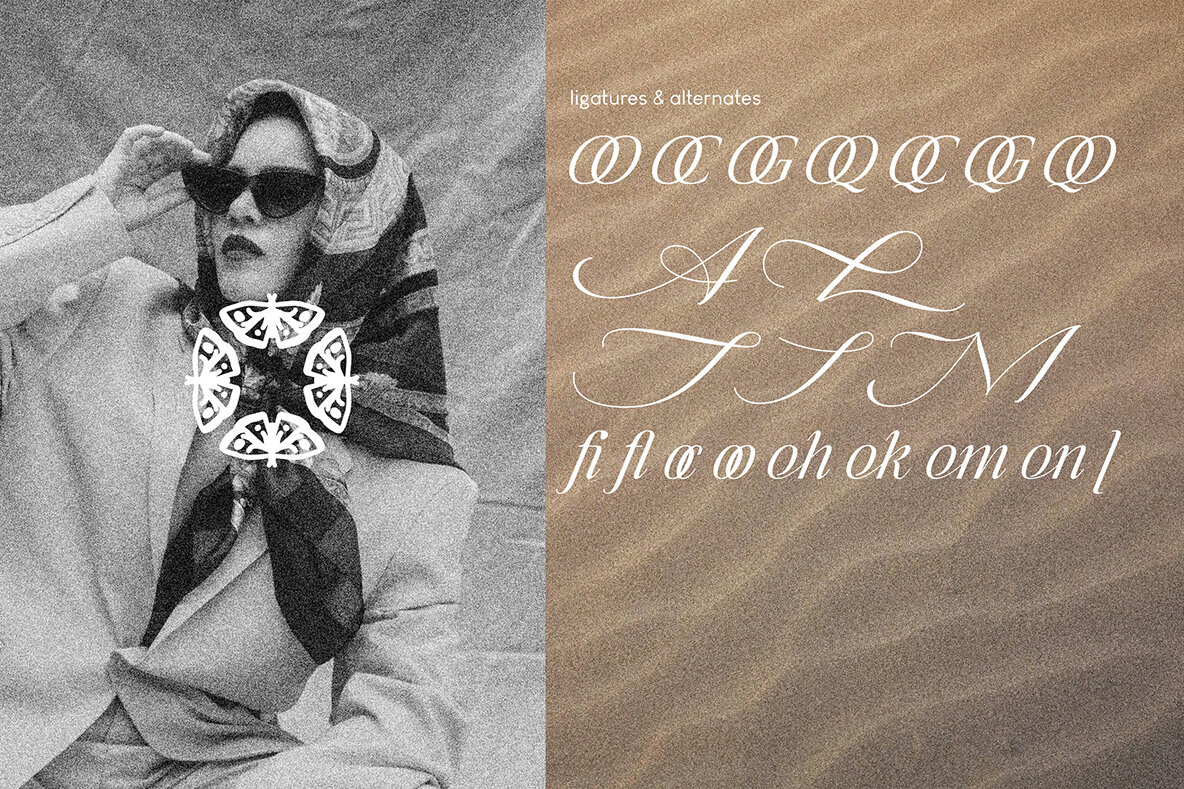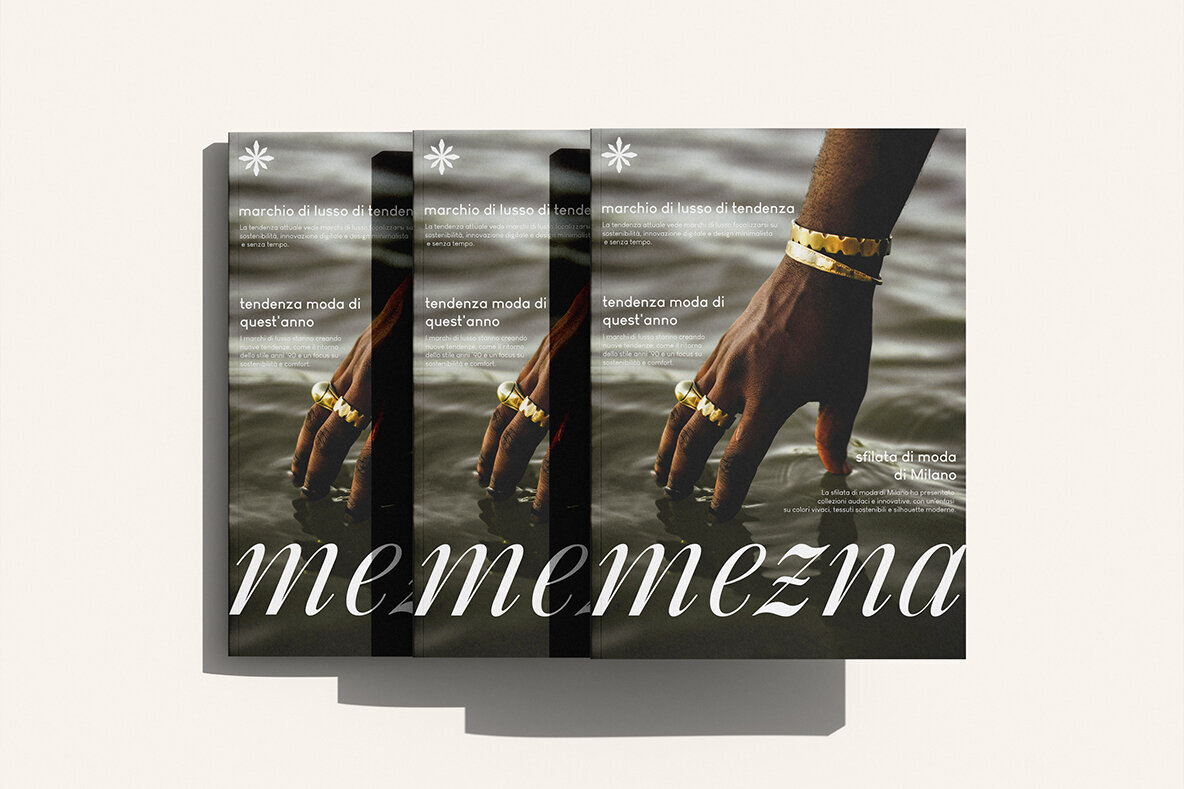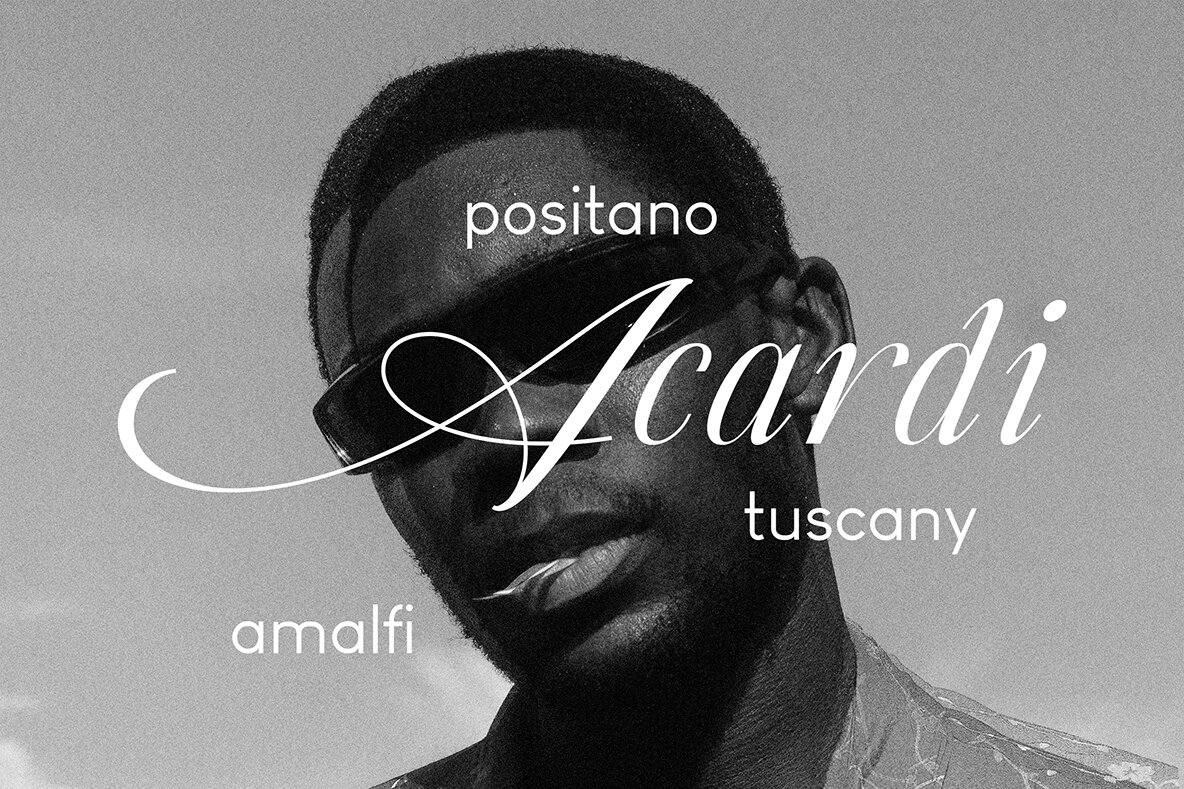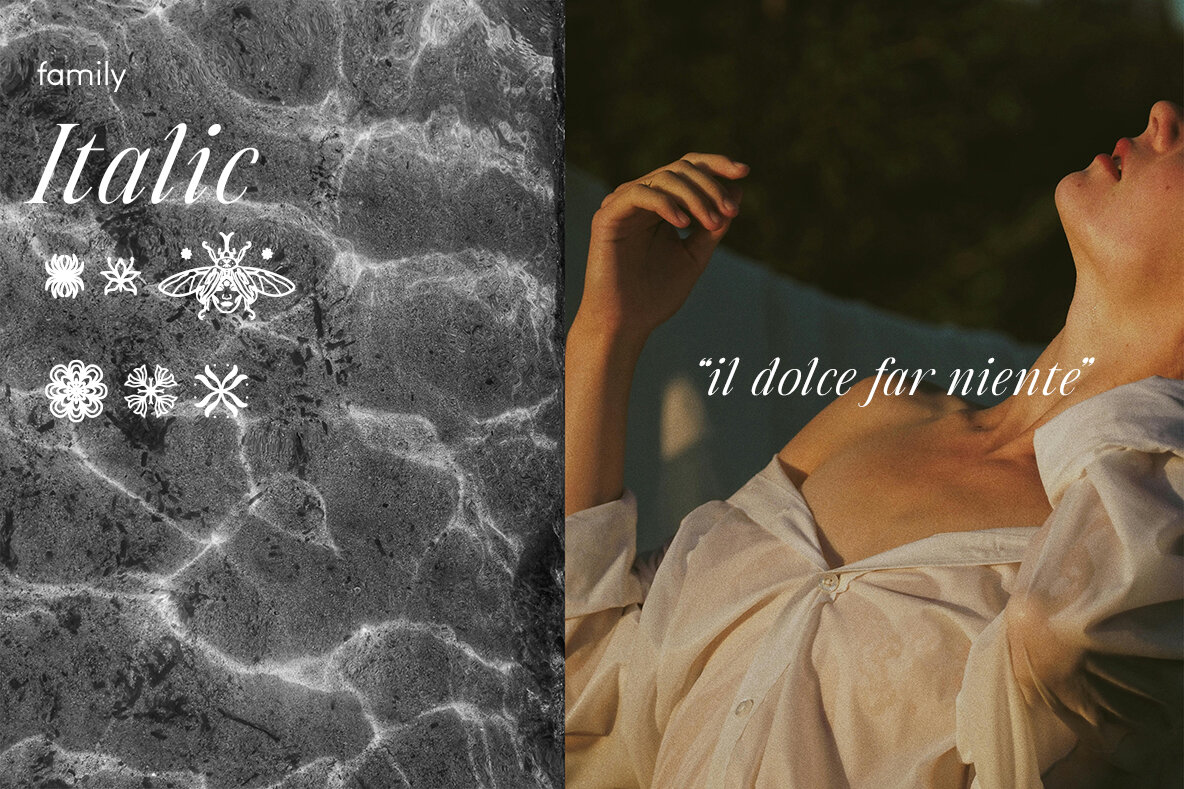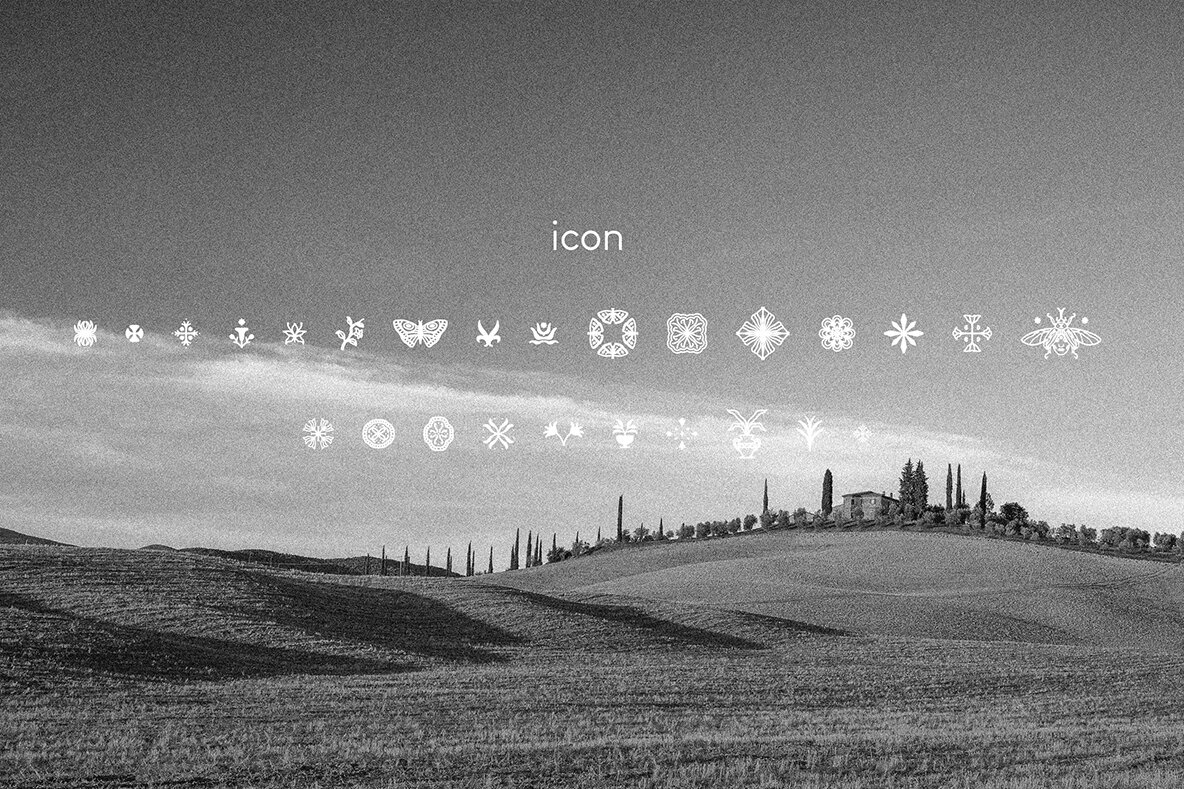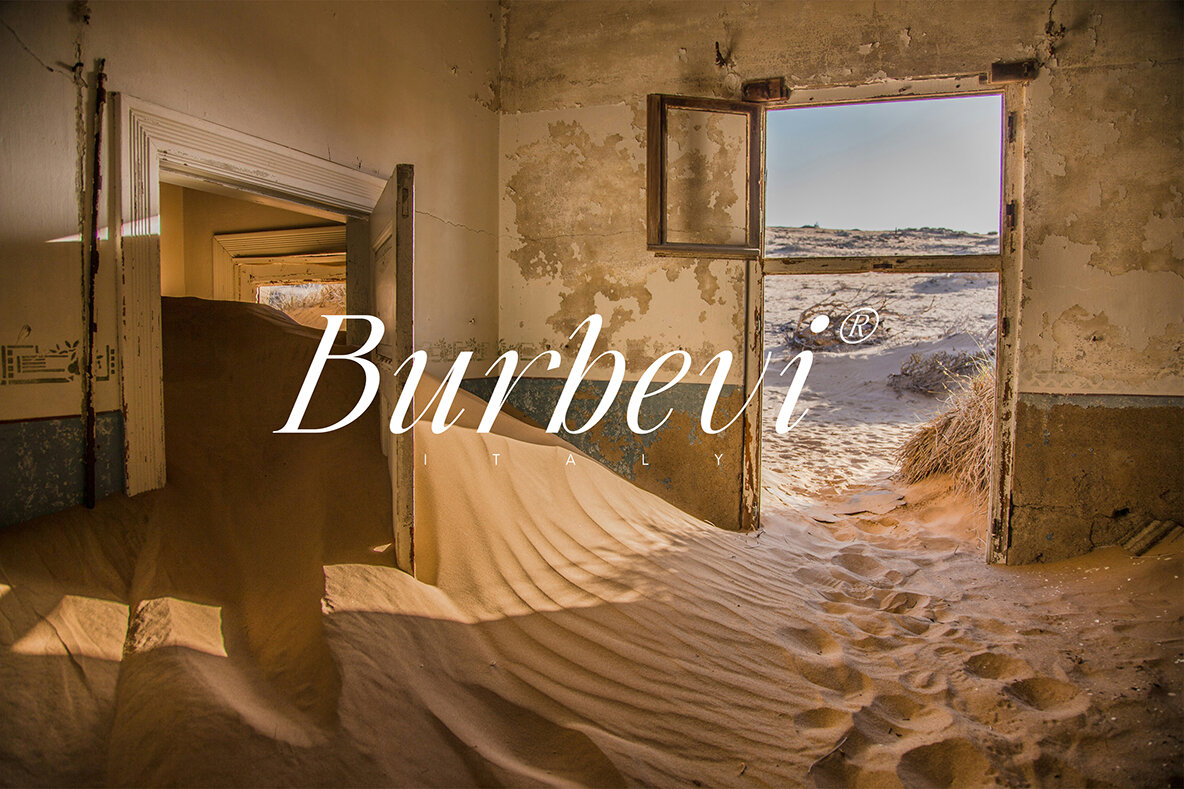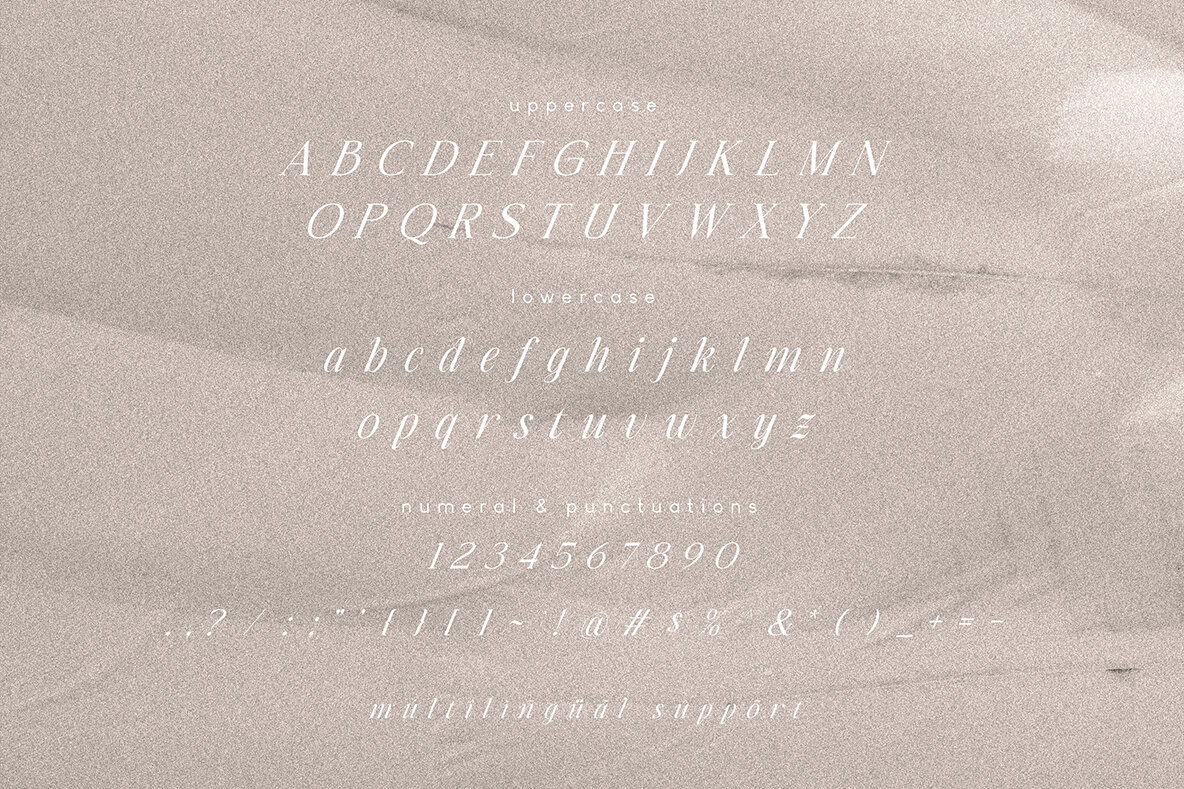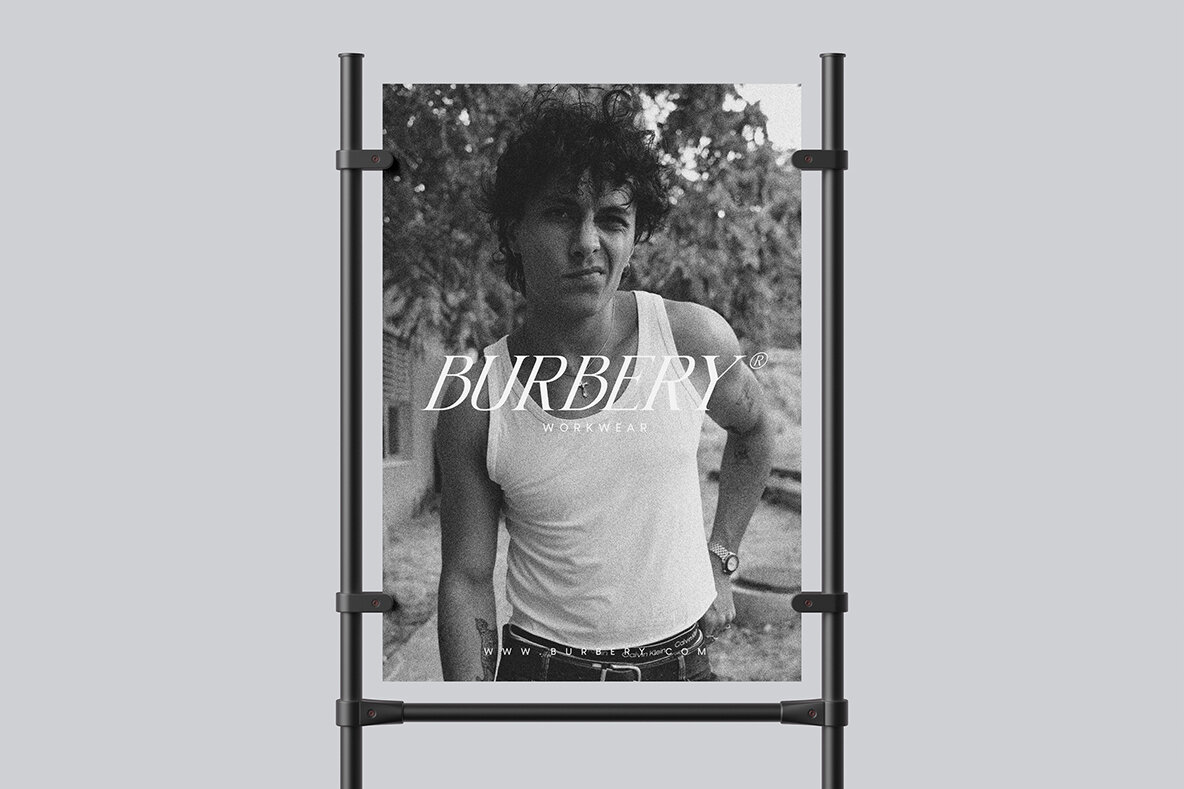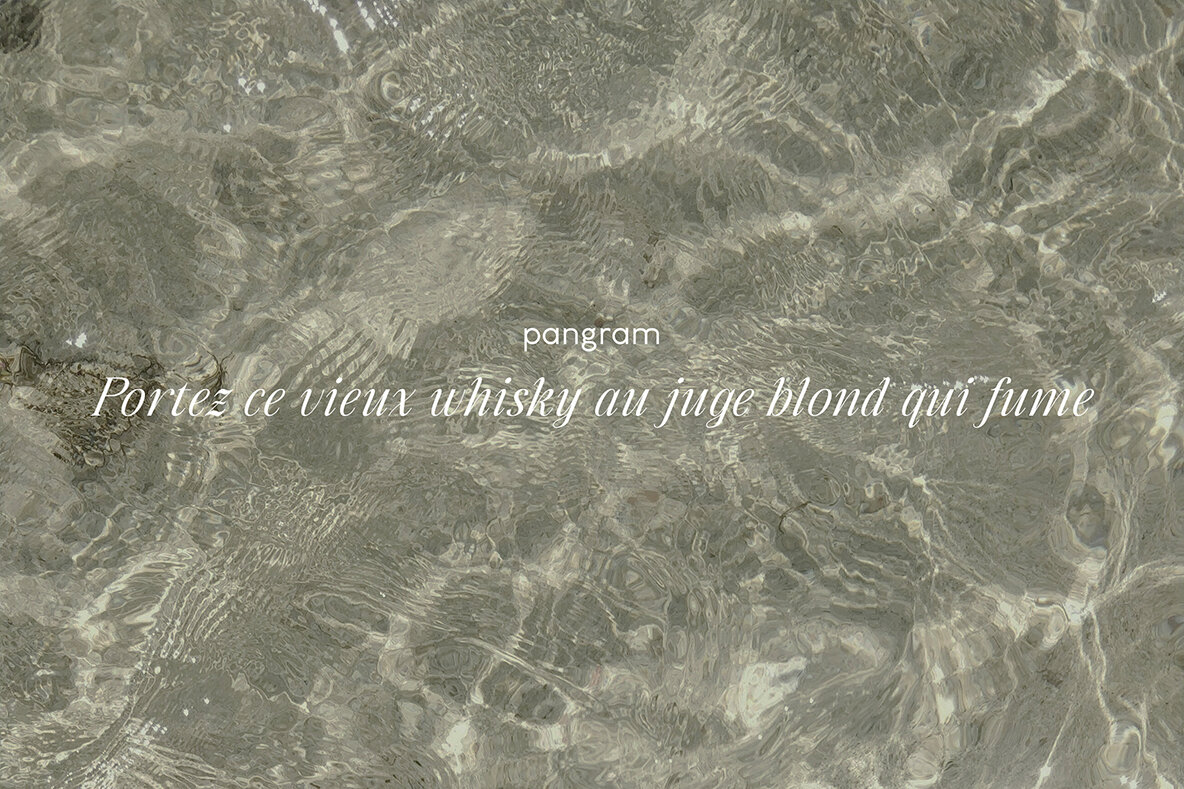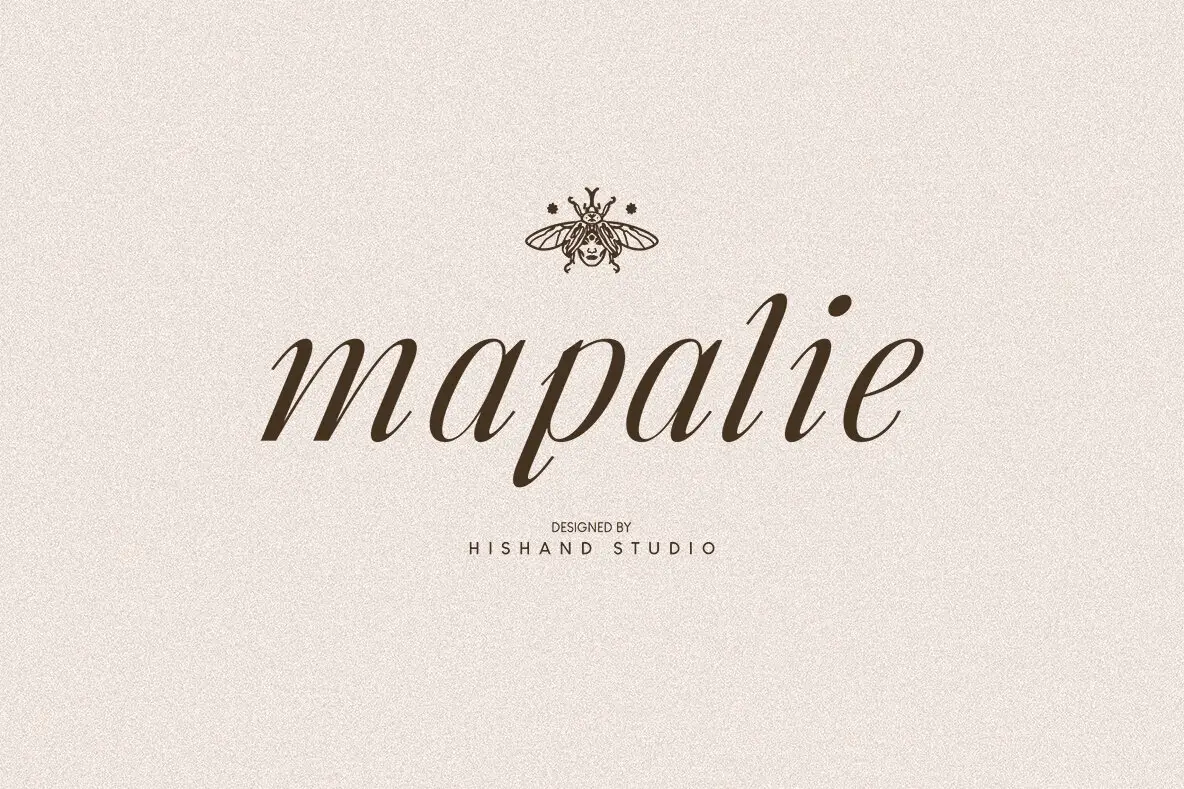
Mapalie Font
Mapalie is an exquisite italic serif font that enhances the elegance, sophistication, and luxury of your designs. The font's smooth curves and distinctive details impart a refined grace to each character, while the italic style injects personality and dynamism. Ideal for branding, invitations, fashion projects, or packaging, Mapalie imparts a sophisticated and timeless aura to your work. Augmenting this elegance, Mapalie includes a set of 26 custom icons that harmonize seamlessly with the font. These icons provide unique accents to your layouts, offering greater flexibility and creative possibilities straight from the start.Mapalie: Elegant Italic Serif Font with Luxurious Details